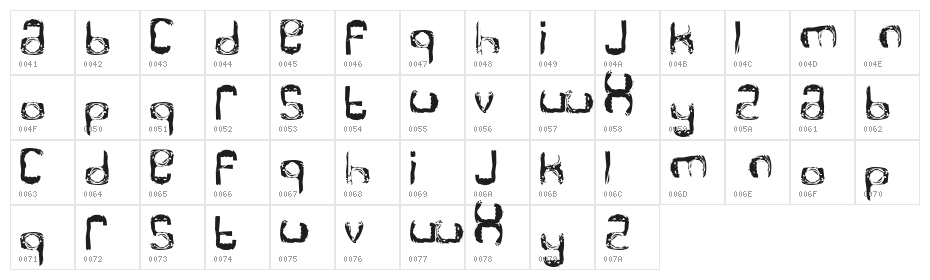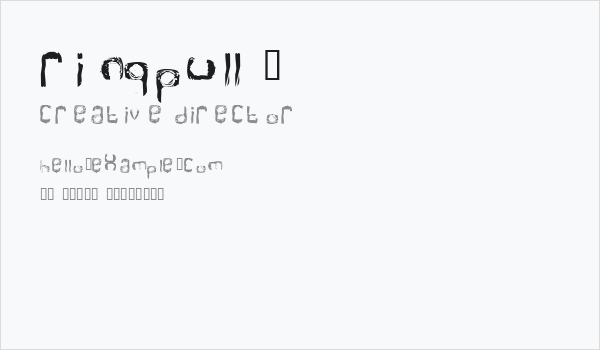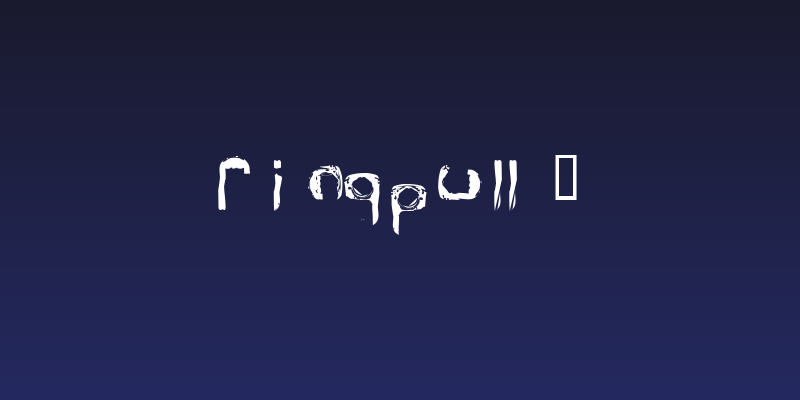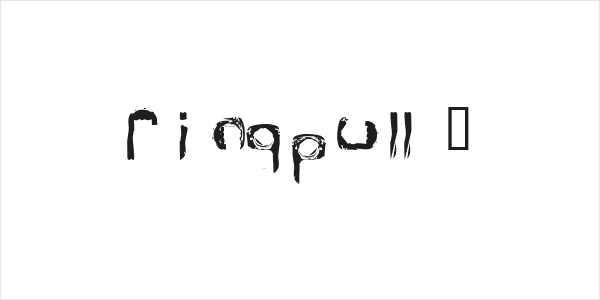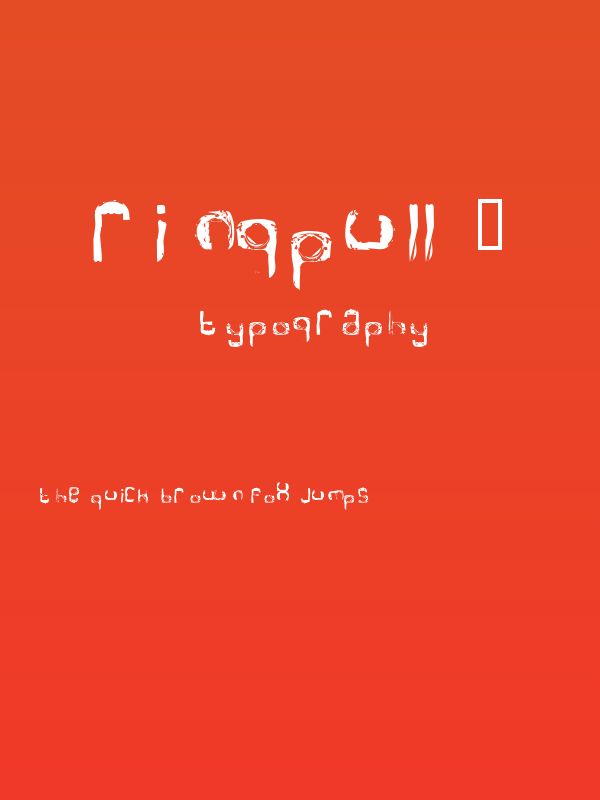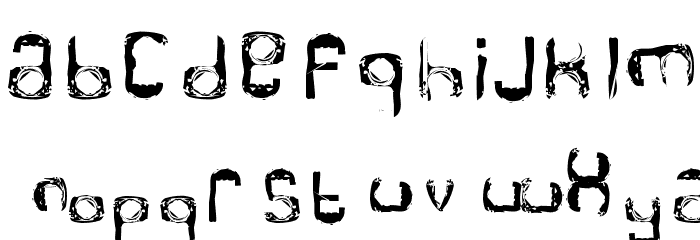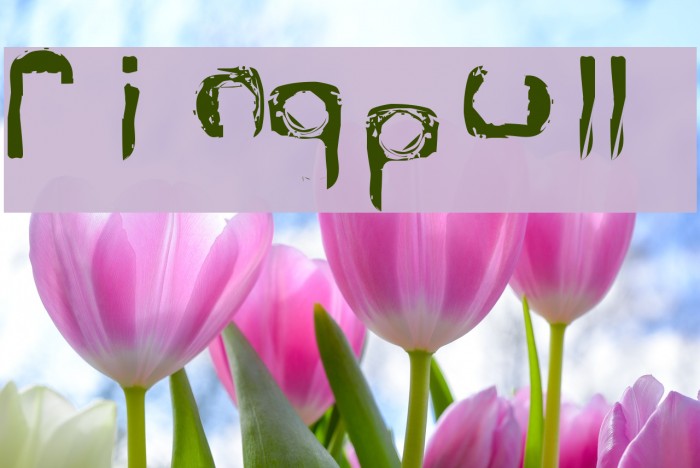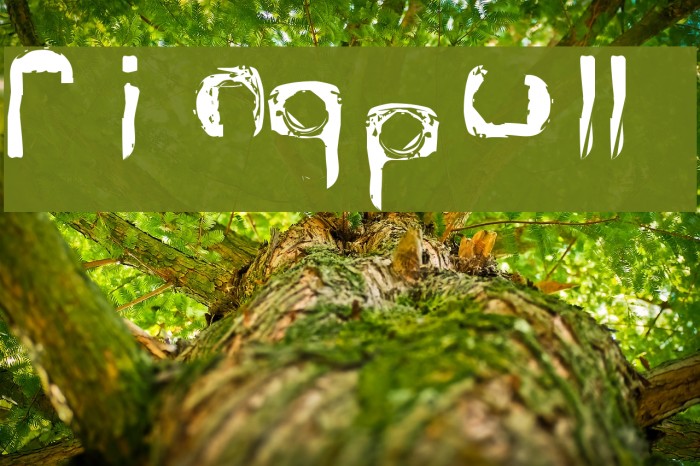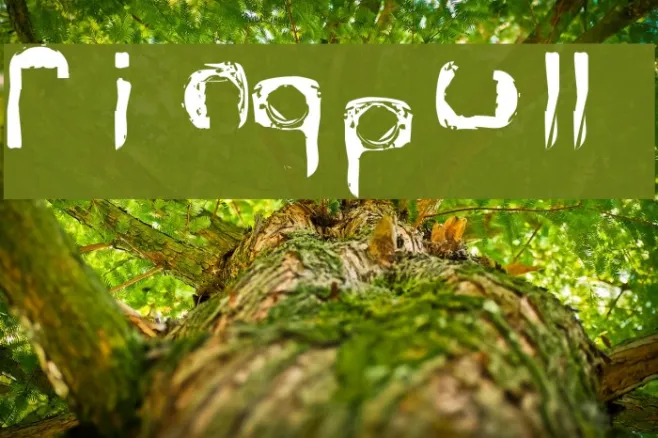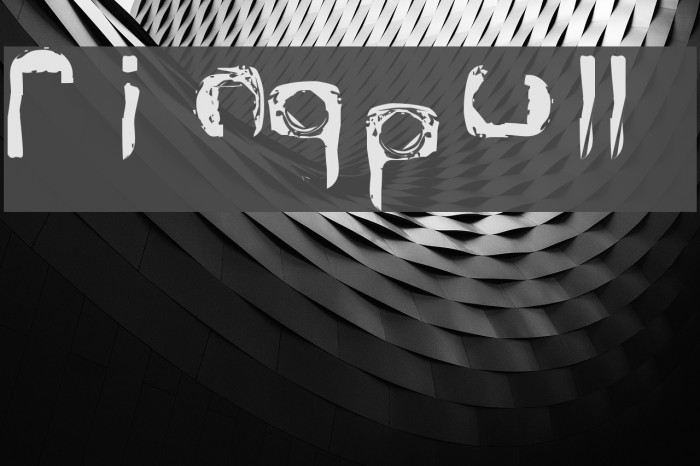
RINGPULL 1 Font
RINGPULL 1 Description
This font features a highly decorative and artistic style, characterized by its rough, textured appearance. Each letter is uniquely crafted with a hand-drawn aesthetic, giving it a raw and organic feel. The strokes are uneven and irregular, adding to its distinctive charm. The font's overall look is bold and expressive, with a playful yet edgy vibe. It captures attention with its unconventional design, making it ideal for creative projects that require a standout typeface. The characters are slightly distorted, enhancing the artistic flair and making it suitable for artistic and experimental designs.
| Proposed Projects | Ideal for album covers, posters, artistic branding, and experimental design projects. |